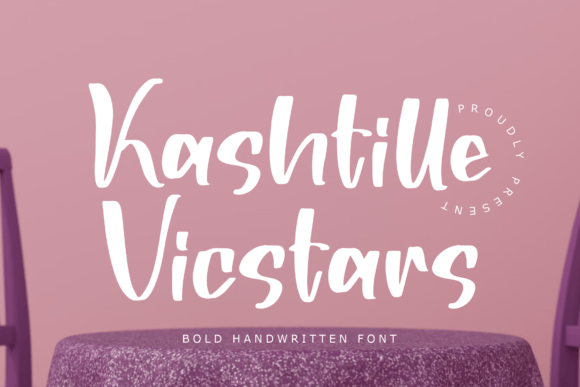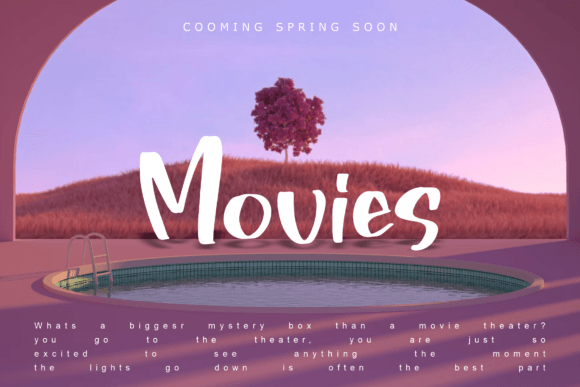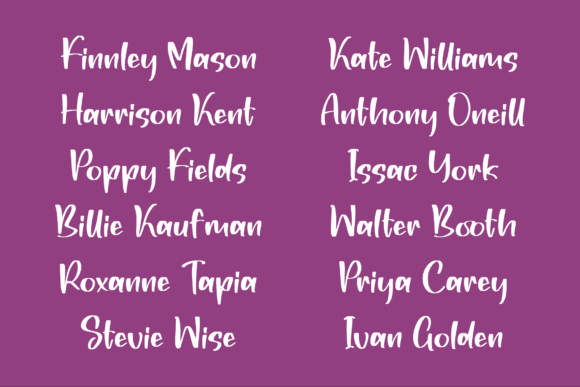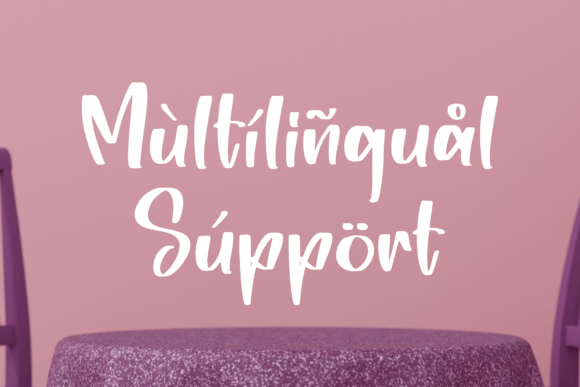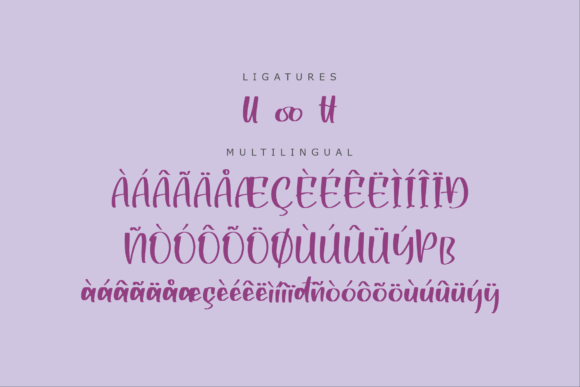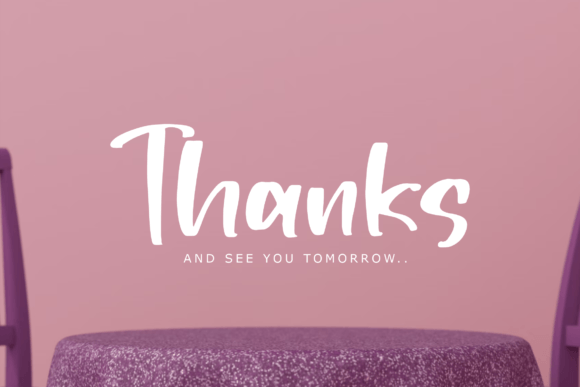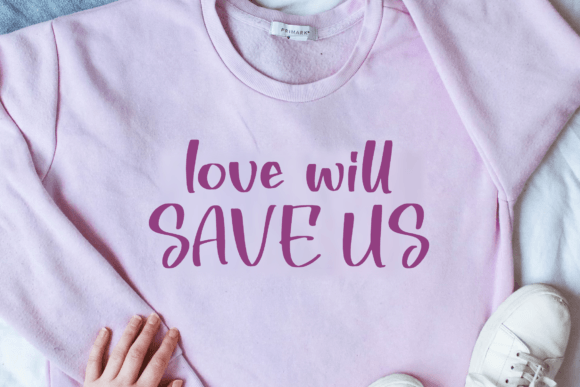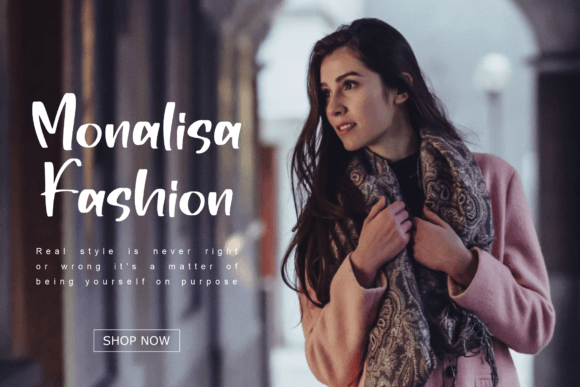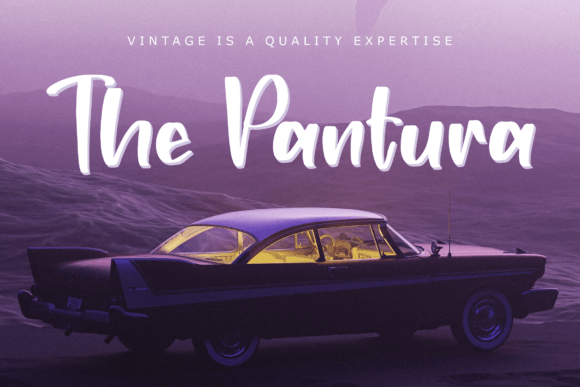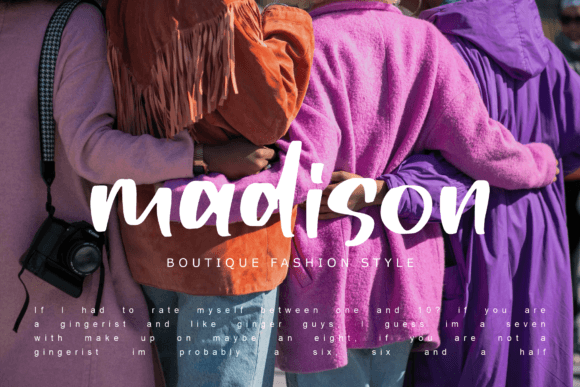
Kashtille Vicstars Font
About Kashtille Vicstars Font
Kashtille Vicstars Font is a bold and stylish handwritten typeface designed to add a strong and beautiful script touch to your creative projects. Its thick strokes and dynamic style make it ideal for a wide range of uses, from logos and branding to homeware designs and product packaging. Kashtille Vicstars brings personality and flair, making your designs eye-catching and memorable.
Bold and Versatile Design
Kashtille Vicstars features bold letterforms with a handcrafted feel. Its unique style balances strength and elegance, making it suitable for both casual and professional projects. The font works well on a variety of surfaces, adding charm and impact wherever it’s used.
Ideal Uses for Kashtille Vicstars Font
This font is perfect for many creative applications, including:
• Logos and brand identities
• Homeware and product packaging
• Mugs, t-shirts, and merchandise
• Posters, flyers, and shopping bags
• Book covers, name cards, and invitation cards
• Greeting cards and labels
• Photography watermarks and special event materials
Its versatility ensures it fits many design needs.
Why Choose Kashtille Vicstars Font?
Designers favor Kashtille Vicstars because of its:
• Bold, eye-catching handwritten style
• Strong personality and handcrafted charm
• Versatility for print and digital media
These qualities make it a practical and stylish font for various projects.
Add Impact and Style to Your Designs
Typography influences how your message is received. Kashtille Vicstars adds confidence, style, and warmth to your designs. Whether used for branding or merchandise, it helps your creative ideas stand out with a bold, beautiful script.
In summary, Kashtille Vicstars Font is a bold and stylish handwritten script perfect for logos, branding, packaging, and many other creative projects. Add it to your font collection to bring personality and impact to your designs.